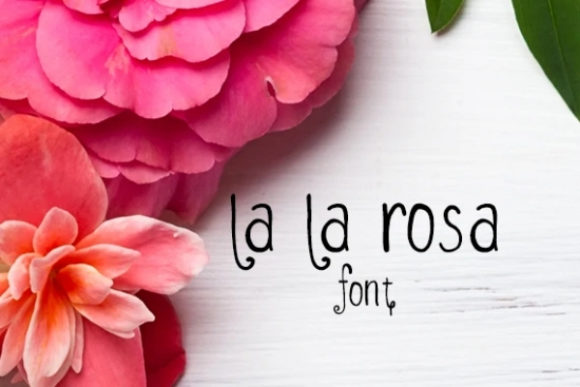
Step into the world of LaLaRosa Font, a captivating handwritten font that will ignite your imagination and transform your creative projects into breathtaking masterpieces.
Journey through a world of enchanting swirls, graceful strokes, and alluring swashes that bring a touch of elegance and charm to every letter. Let your words dance across the page, enveloped in the whimsical embrace of LaLaRosa Font.
With its playful spirit and undeniable allure, LaLaRosa Font is the perfect companion for crafting personalized invitations that capture the joy of special occasions. Imagine your wedding invitations adorned with the delicate strokes of LaLaRosa Font, leaving a lasting impression of sophistication and romance.
Unleash your creativity and craft beautiful stationary art that reflects your unique style. Whether it's a heartfelt letter, a personalized journal, or a stunning piece of artwork, LaLaRosa Font adds a touch of magic that captivates the senses.
Make a statement on social media with eye-catching posts that demand attention. Let LaLaRosa Font elevate your content, making your words shine with a distinctive charm that sets you apart from the crowd.
Create adorable greeting cards that spread warmth and joy. From heartfelt messages to playful greetings, LaLaRosa Font transforms your words into tangible expressions of love and affection, leaving a lasting smile on the recipient's face.
With LaLaRosa Font by your side, you'll embark on a creative journey where every project is an opportunity to showcase your individuality and passion. Its versatility knows no bounds, inspiring you to explore new horizons and create designs that leave an indelible mark on your audience.